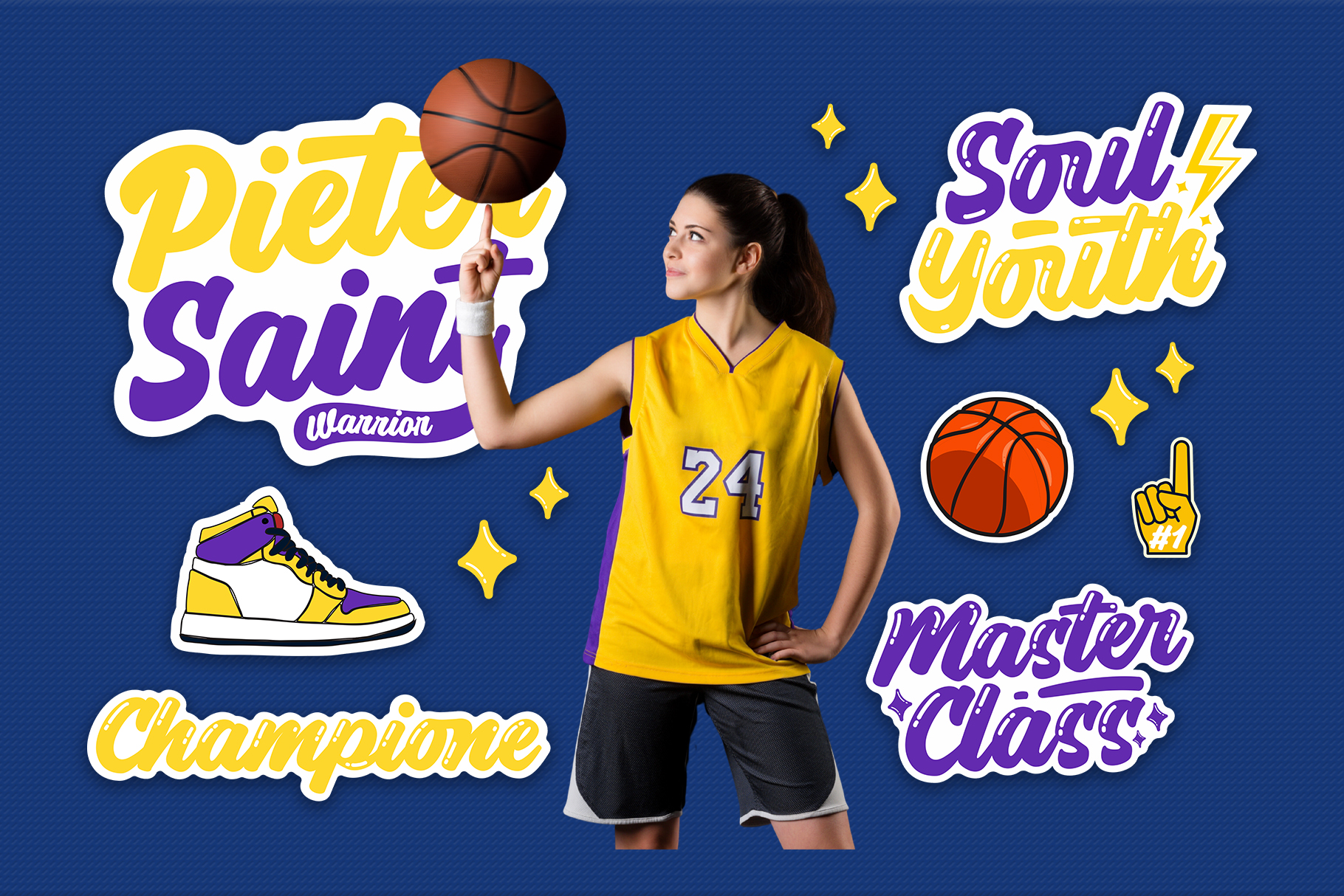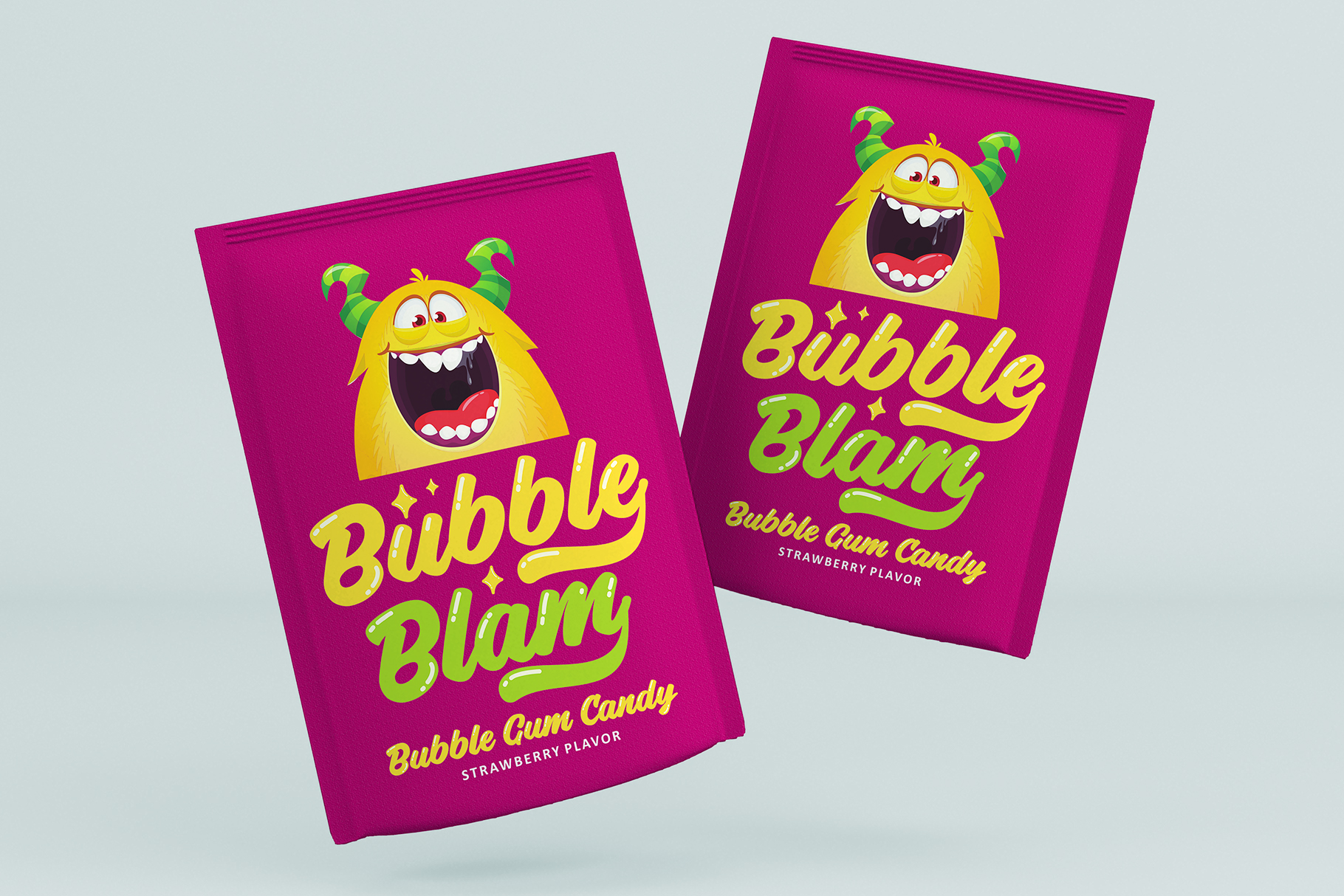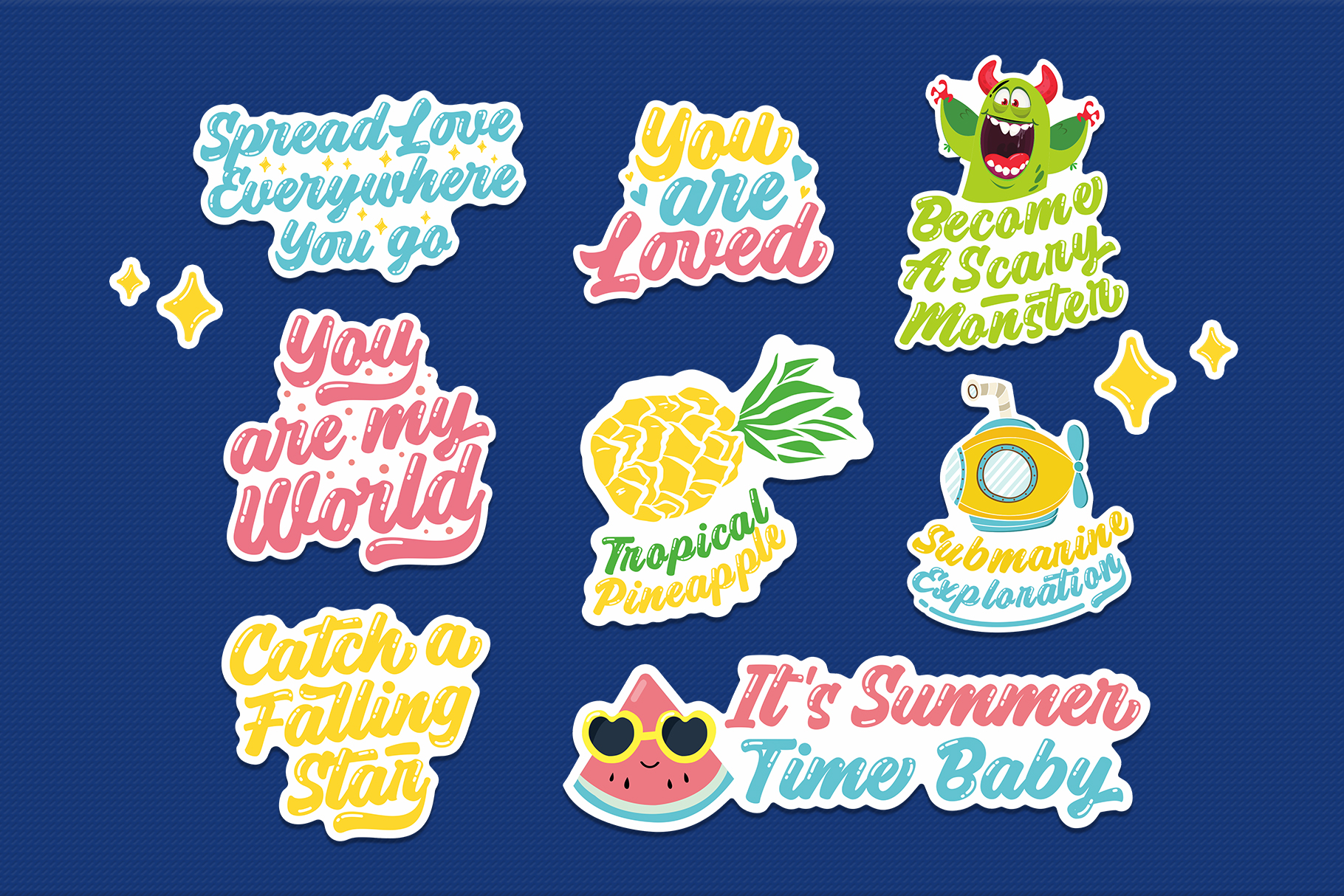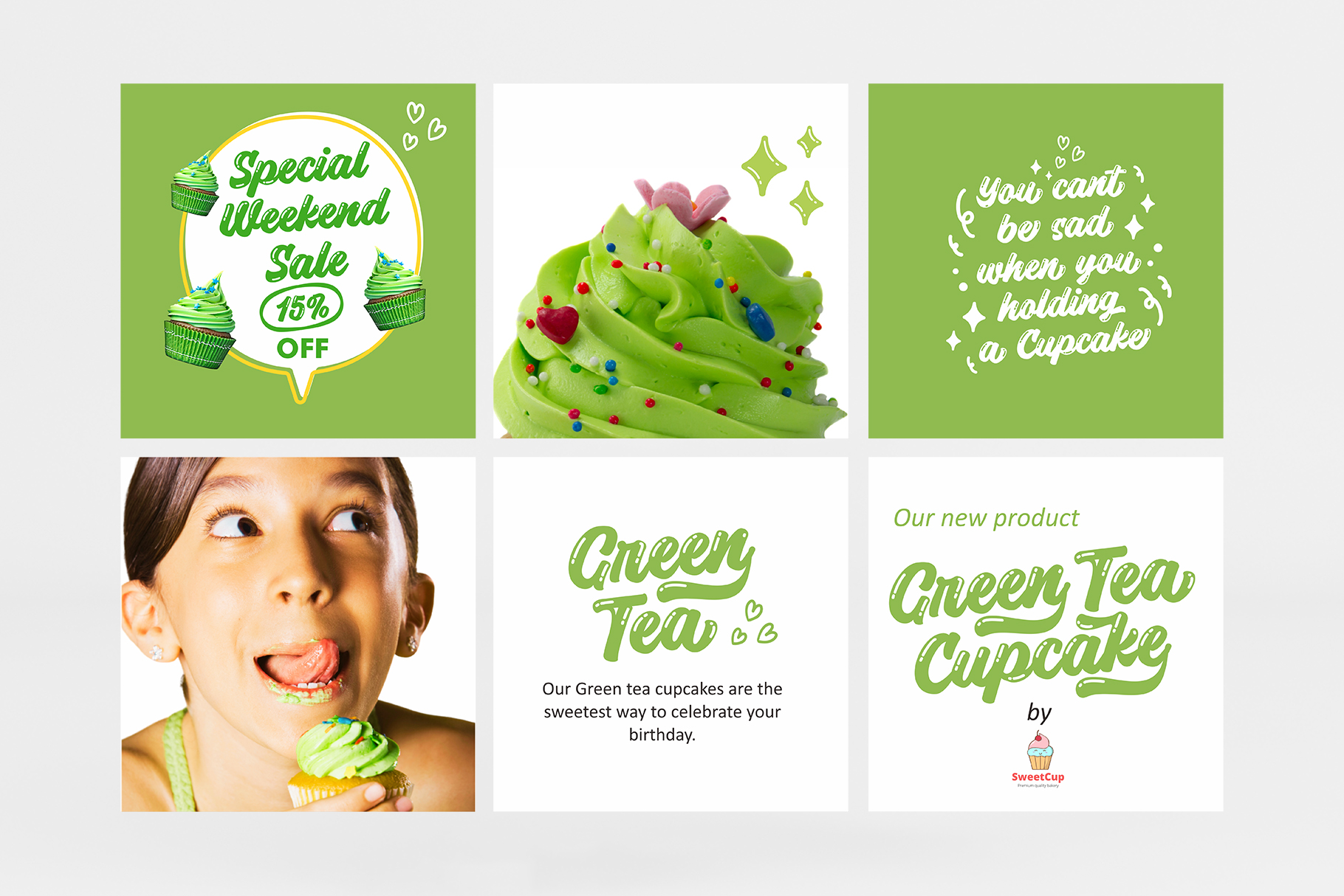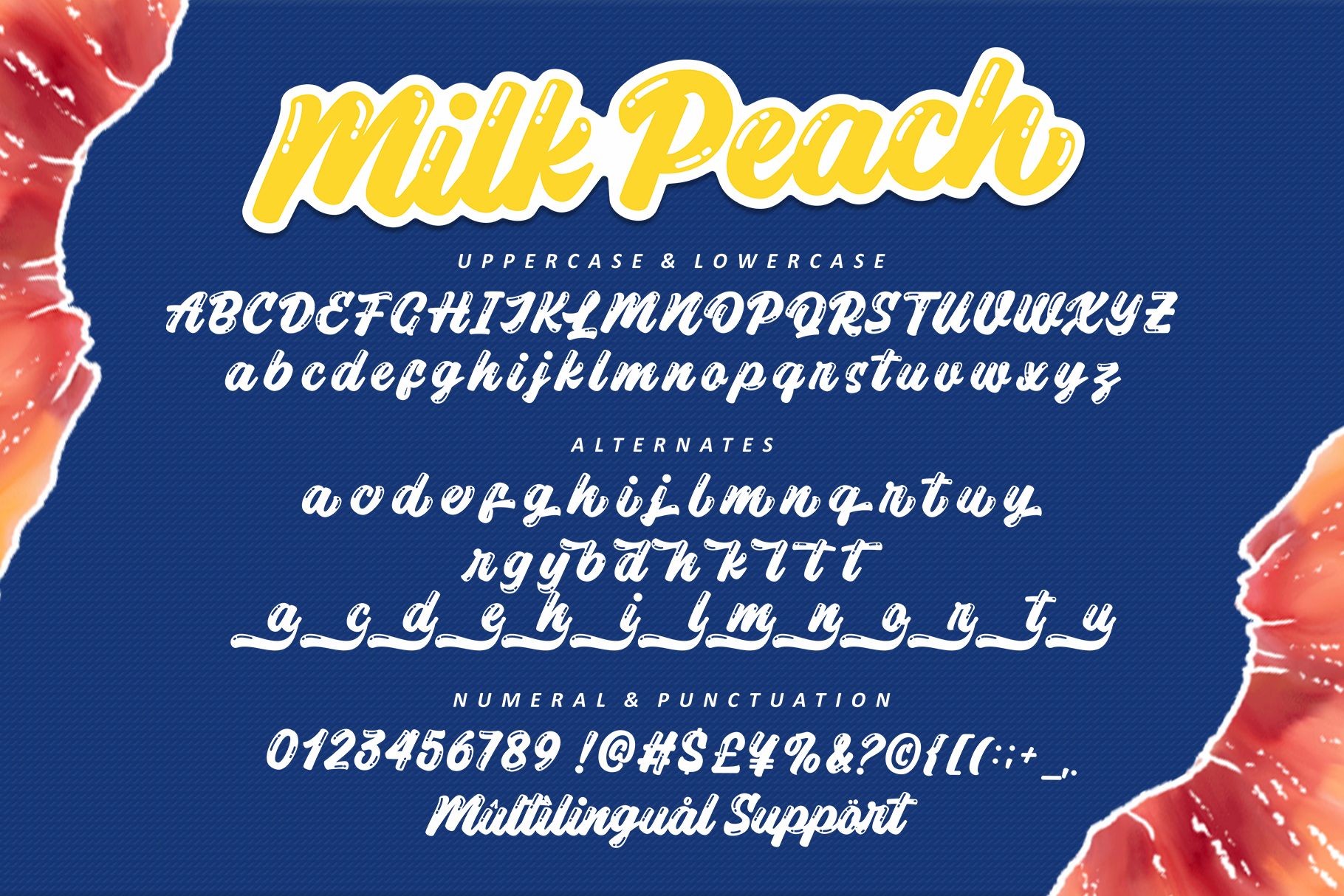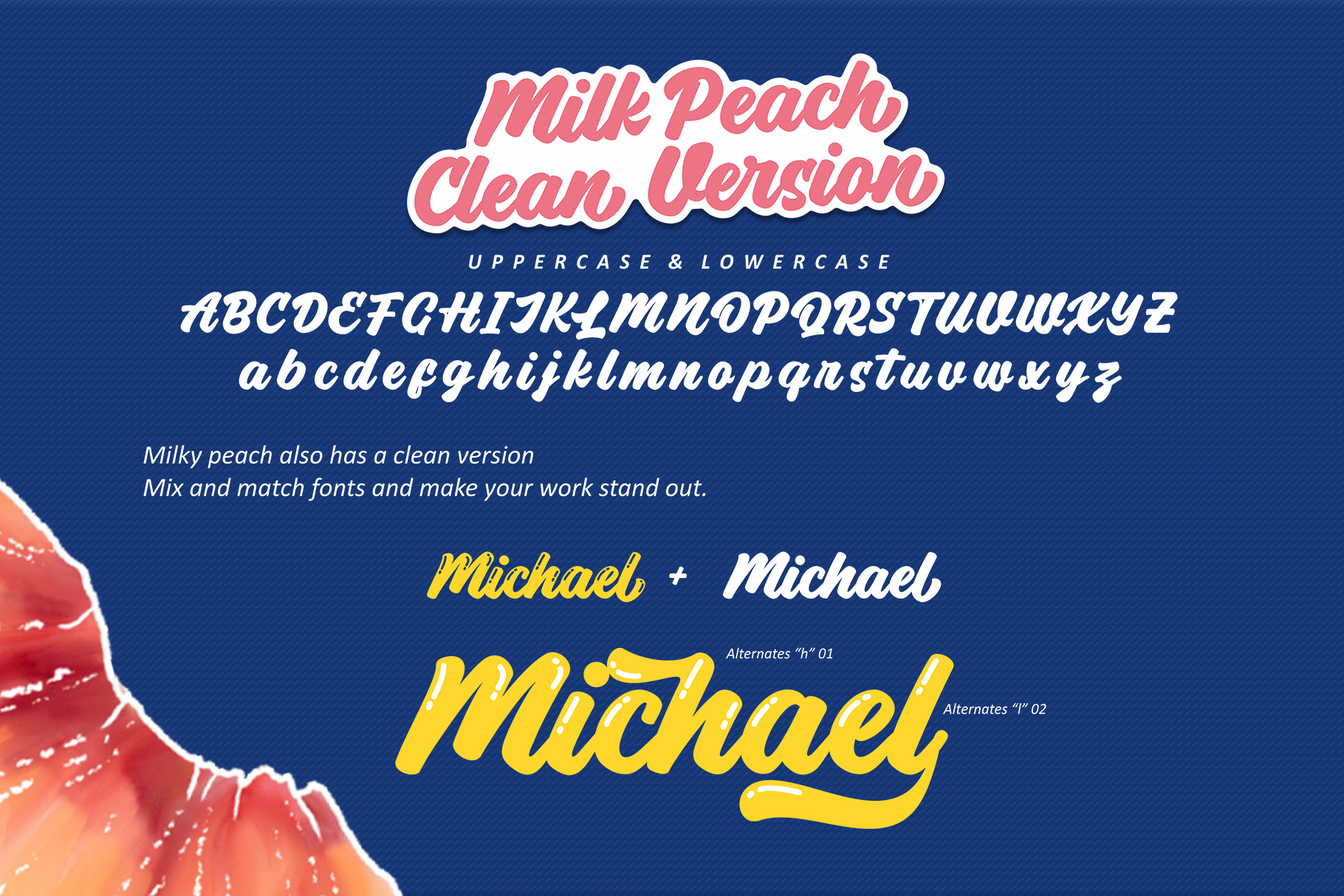
- Milk Peach – Quirky Playful Font Script
Unleash Your Design Superpowers with Milk Peach Font! and Witness the Magic Unfold! Embrace a Playful & Quirky Style in Your Creations. Perfect for Posters, Stickers, logo, social media content, template and so much More! Let Your Imagination Soar and Watch Your Designs Come to Life.